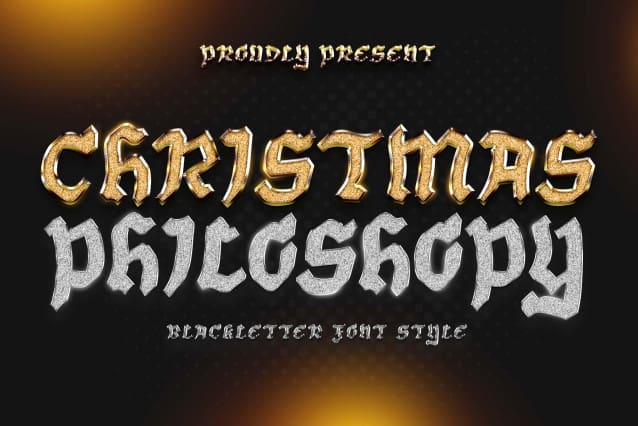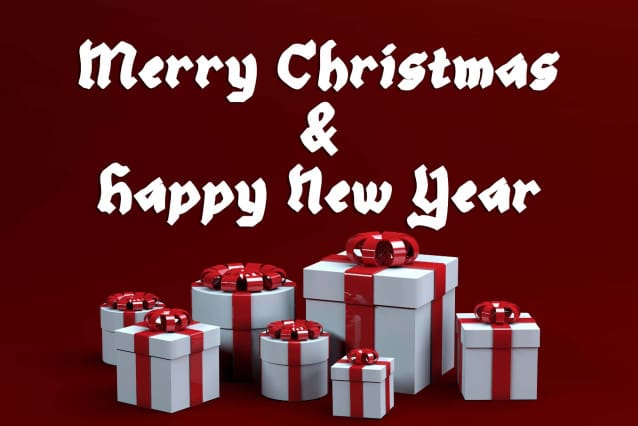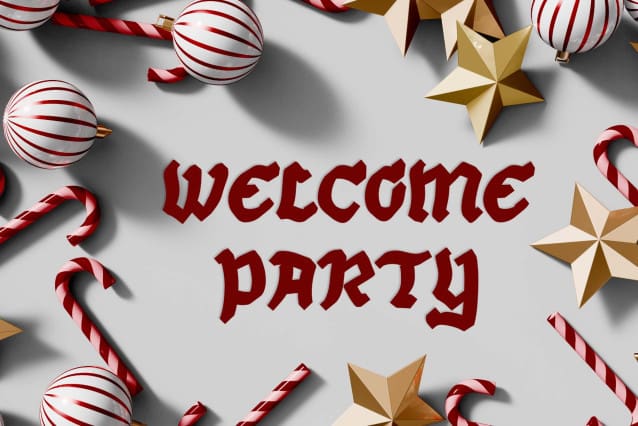
Christmas Philosophy Font
Christmas Philosophy Font is a professional and elegant blackletter font. This font is very suitable for Christmas, birthdays, weddings, engagements, logos, banners, branding, posters, stickers, and others. Equipped with uppercase letters, lowercase letters, numerals, punctuation, and multilingual support